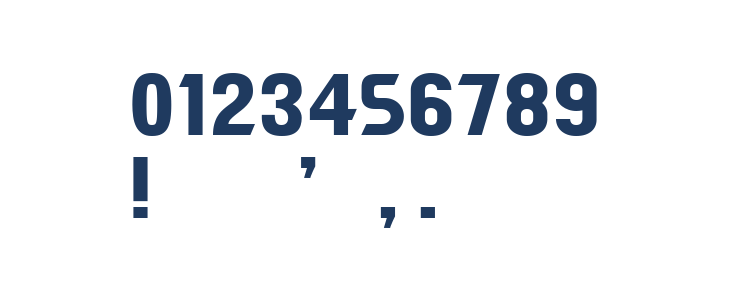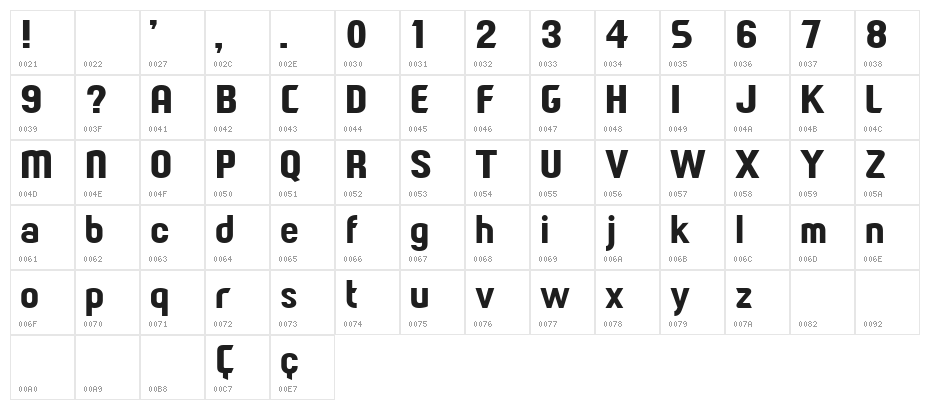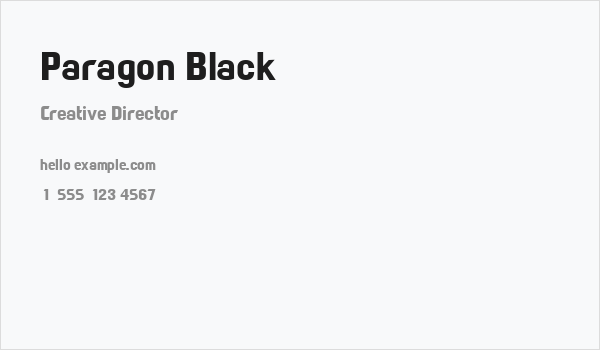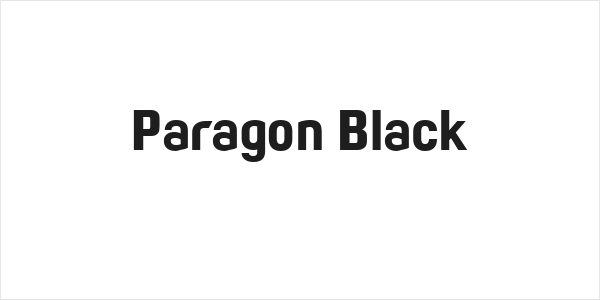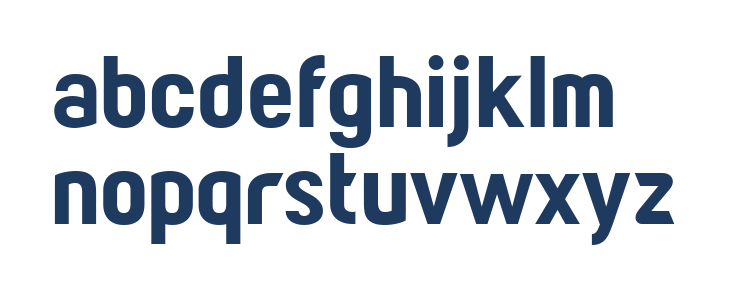
Paragon Black Font
Paragon Black Description
This font exhibits a bold and assertive style with thick, uniform strokes that convey strength and stability. The characters are well-defined with a modern geometric influence, featuring straight lines and sharp angles. The uppercase letters are particularly striking, with a strong presence that commands attention. The lowercase letters maintain the same boldness, ensuring consistency throughout the typeface. The numerals are clear and robust, making them ideal for impactful displays. Special characters are designed to match the overall bold aesthetic, ensuring a cohesive look across all text elements.